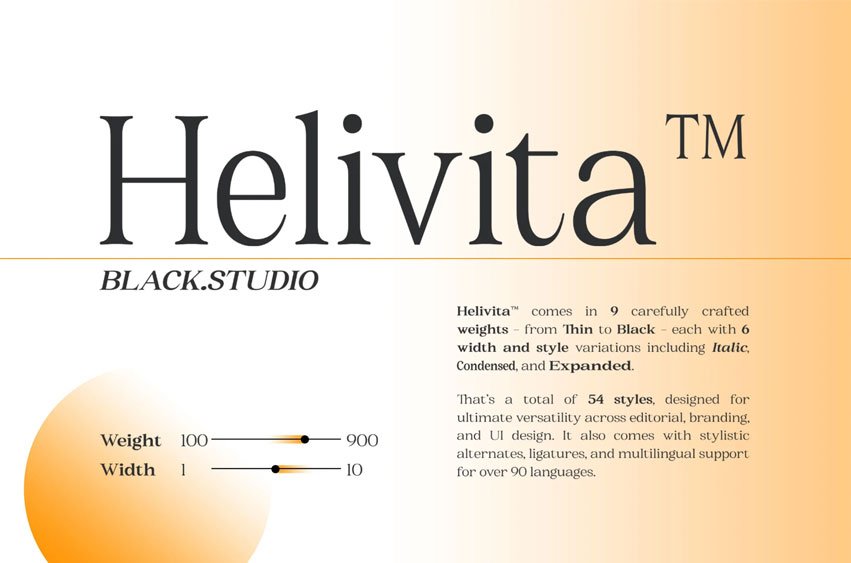
Helivita Font Modern Elegance Meets Typographic Versatility Helivita is a sophisticated serif typeface designed to bring refined elegance and functional versatility to your typography. Featuring 9 meticulously balanced weights from Thin to Black, each weight is complemented by 6 width and style variations—including Italic, Condensed, and Expanded—giving you a total of 54 dynamic styles to work with.
Crafted with precision for editorial design, branding, and user interfaces, Helivita combines timeless form with modern flexibility. Its clean curves, stylish alternates, and powerful ligatures make it an ideal choice for high-end projects that demand both beauty and performance.
With extensive multilingual support covering over 90 languages, Helivita ensures your message resonates globally. Whether you’re designing a luxurious magazine spread or a bold visual identity, Helivita adapts effortlessly to every creative need.